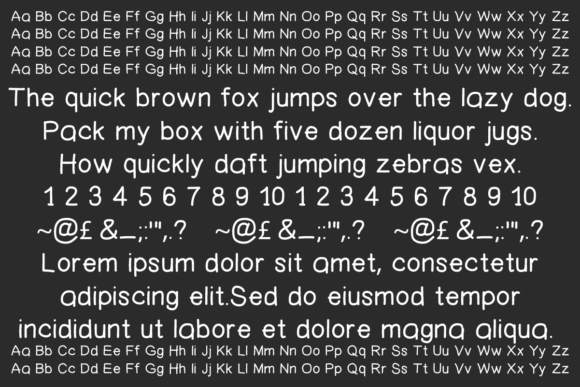
Introducing Hand Brush Blob Font: The Ultimate Handwriting Typeface
In the world of typography, few font styles can convincingly simulate the warmth and personality of handwriting. But, with the introduction of “Hand Brush Blob” font, designers and crafters can now add a touch of human touch to their creative projects. This regular style typeface is perfect for expressing love, energizing video texts, creating distinctive brand identities, penning handwritten style notes, and more.
What Makes Hand Brush Blob Font Special?
Hand Brush Blob font features a well-rounded character set that encompasses not only upper and lower case letters but a full suite of numerals and punctuations too. This extensive character set makes it an ideal choice for a wide range of design applications, from crafting social media posts to designing brand logos. The font’s unique blend of rounded and fluid strokes creates a distinctive look that is both modern and approachable.
Perfect for Expressing Love and Creativity
Hand Brush Blob font is perfect for designers and crafters who want to add a personal touch to their work. Whether you’re creating handmade cards, invitations, or social media graphics, this font is sure to make your project stand out. The font’s handwriting style and fluid strokes create a sense of warmth and personality that is hard to replicate with traditional fonts.
Energize Your Video Texts with Hand Brush Blob
Video content is becoming increasingly popular, and typography plays a crucial role in making video texts engaging. Hand Brush Blob font is perfect for energizing video texts and adding a touch of personality to your video content. The font’s bold and fluid strokes make it easy to read, even on small screens.
Create Distinctive Brand Identities with Hand Brush Blob
Building a strong brand identity is crucial for businesses, and typography plays a significant role in creating a memorable brand image. Hand Brush Blob font is perfect for creating distinctive brand identities that stand out from the crowd. The font’s unique style and fluid strokes create a sense of approachability and friendliness that is hard to replicate with traditional fonts.
Penning Handwritten Style Notes with Ease
Handwritten notes are becoming increasingly popular, and with Hand Brush Blob font, you can create beautiful handwritten-style notes with ease. The font’s fluid strokes and rounded edges create a sense of warmth and personality that makes handwritten notes feel special.
Key Features of Hand Brush Blob Font
- Unique handwriting style font
- Well-rounded character set, including upper and lower case letters, numerals, and punctuations
- Perfect for expressing love, energizing video texts, creating distinctive brand identities, and penning handwritten-style notes
- Fluid strokes and rounded edges create a sense of warmth and personality
- Easy to read, even on small screens
In conclusion, Hand Brush Blob font is a unique and versatile typeface that is perfect for designers and crafters who want to add a personal touch to their work. With its well-rounded character set, fluid strokes, and rounded edges, this font is sure to make your project stand out. Whether you’re creating handmade cards, video texts, or brand identities, Hand Brush Blob font is an excellent choice.